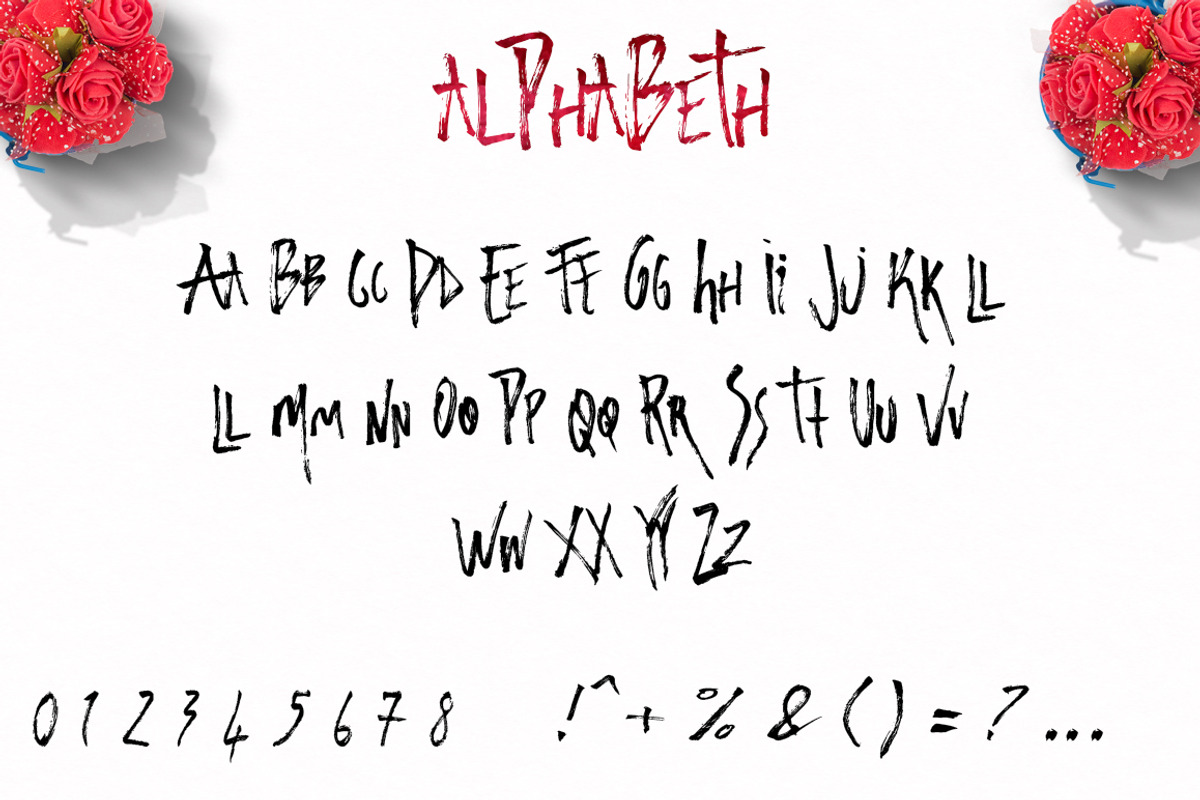
Amsterdam
AMSTERDAM DİFFERENT FONT :
The best feature of the font :
Only by using the SHIFT key, different words with different fonts you can get too much.
Use Enjoy the Ride typeface to make logo marks, posters, T-shirt designs or anything that requires that personal touch
Amsterdam Brush Font :
Upparcase
Lowercase
Number and Symbols
30 Swashes
10 Splashes
And Extra Brus Strokes